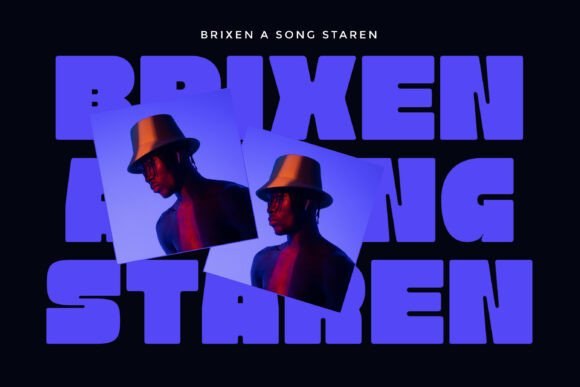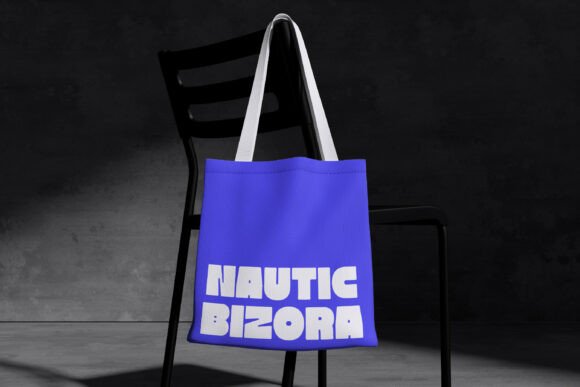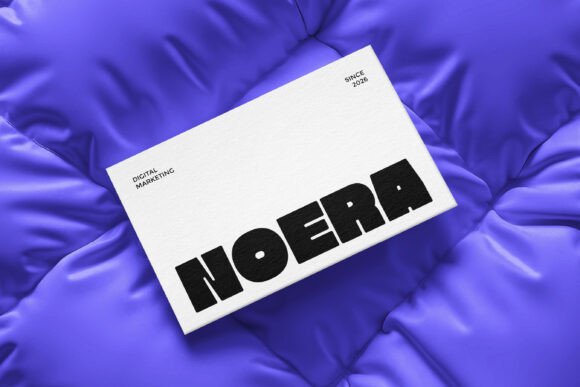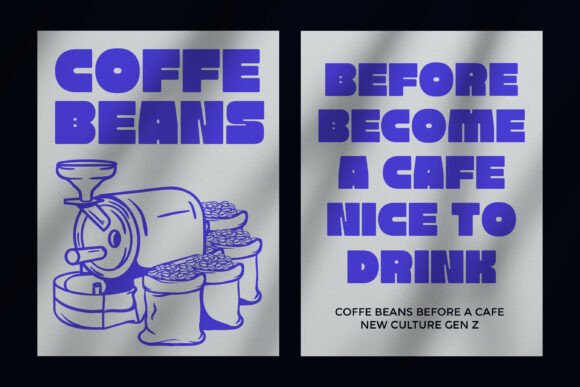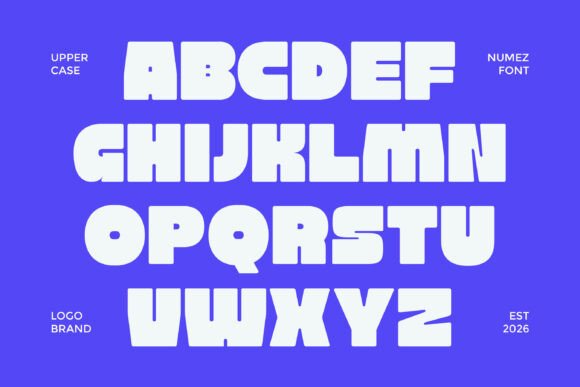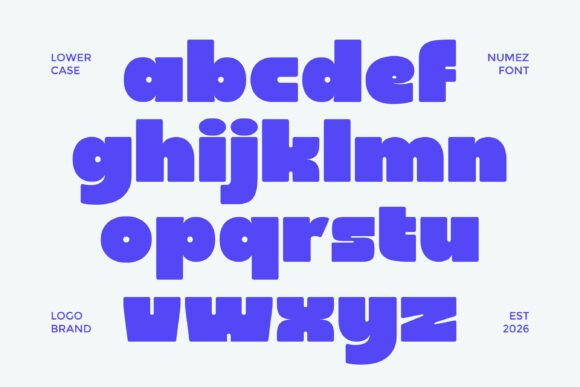
Designing for Impact: Introducing the Bold Numez Font
Have you ever been brainstorming a new brand identity, and suddenly, the perfect font just clicks? For designers, that “aha” moment is a thrill unlike any other. It’s the moment when everything falls into place, and the vision starts to take shape. And for those who’ve experienced it, we’re excited to introduce the Bold Numez Font – a game-changing display font designed to make a lasting impression.
With its heavy, solid style and confident proportions, the Bold Numez Font is perfect for modern branding that needs to stand out from the crowd. Its thick strokes, rounded forms, and tiny apertures give it a unique, almost playful appearance that’s sure to capture attention. Whether you’re designing food packaging, magazine headers, or vibrant lifestyle brands, the Bold Numez Font is an invaluable asset that will elevate your design to the next level.
Bold Numez Font Key Features
- Font Family: Bold Numez Font is a sans-serif font family designed for digital displays.
- Character Set: Supports a wide range of characters, including Latin, Cyrillic, and Greek alphabets, as well as various symbols and punctuation marks.
- Unique Characteristics: Bold Numez Font features a unique blend of modern and minimalist design elements, making it an excellent choice for contemporary designs and applications.
Bold Numez Font Review
First off, I want to say that I love the ✨ unique aesthetic of the Bold Numez Font. The bold and edgy feel it brings to any design is quite captivating, making it perfect for modern and trendy projects. The font also comes in a range of weights, making it versatile for different design needs.
The font’s ✨ legibility is also noteworthy, considering its bold nature. It’s clear and easy to read, even at smaller sizes, which is a big plus. Additionally, the font is ✨ highly customizable, allowing designers to adjust its styles to fit their project’s specific needs.
- ⚠️ Limited font pairing options – Bold Numez Font can be a bit overpowering when paired with other fonts, which may limit its use in certain designs.
- ⚠️ Limited language support – The font may not support certain languages or character sets, which could be a drawback for designers working on multilingual projects.
Overall, I think the Bold Numez Font is a great addition to any designer’s toolkit. While it may have some limitations, its unique style and versatility make it a worthwhile choice for the right project. Just be mindful of its potential drawbacks and adjust your design accordingly.
Use the Bold Numez Font to add emphasis to headings, titles, and other important text elements. Experiment with different font sizes and colors to create visual hierarchy and balance.
The Bold Numez Font is ideal for:
- Emphasizing important text
- Creating visual hierarchy
Alternatives to Bold Numez Font for Designers
Arial Black is a sans-serif font that is widely available on most computers. It is a good alternative to Bold Numez Font when you need a bold font that is easy to read and doesn’t have a lot of character. Use Arial Black for body text or headings where you want a clean and simple look.
Compared to Bold Numez Font, Arial Black is more straightforward and lacks the unique character of Bold Numez Font. However, it is a more versatile font that can be used in a wider range of situations.
Impact is a sans-serif font that is designed to be bold and eye-catching. It is a good alternative to Bold Numez Font when you want to make a statement with your text. Use Impact for headings or titles where you want to draw attention to a particular piece of information.
Compared to Bold Numez Font, Impact is more dramatic and attention-grabbing. However, it can be difficult to read in large blocks of text.
3. Helvetica Bold
Helvetica Bold is a sans-serif font that is widely used in graphic design. It is a good alternative to Bold Numez Font when you want a bold font that is clean and sophisticated. Use Helvetica Bold for headings or titles where you want to convey a sense of professionalism.